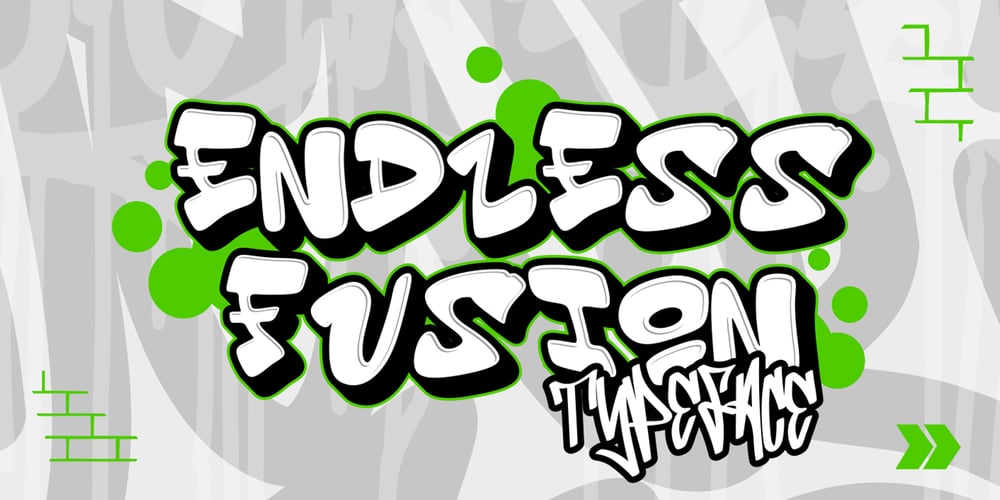
Endless Fusion 3d Graffiti
Endless Fusion 3d Graffiti font
Endless Fusion 3d Graffiti Font Family was designed by Sipanji and published by Sipanji21. Endless Fusion 3d Graffiti contains 4 styles and family package options. Endless Fussion is a 3D layered graffiti font that boasts rounded ends on its characters. This versatile typeface includes four distinct styles for each character: solid, outline, extrude, and inner shadow. These multiple layers allow for creating dynamic and visually striking designs that pop off the page. Endless Fussion is ideal for any design project with a graffiti or street theme, making it perfect for streetwear products, eye-catching social media ad headlines, website designs, and other urban-inspired projects. The variety of styles and the font’s bold, edgy appearance ensure that your designs will stand out and convey a powerful, modern aesthetic. Whether you’re working on branding, packaging, or digital content, Endless Fussion offers the flexibility and impact needed to make your projects truly memorable.